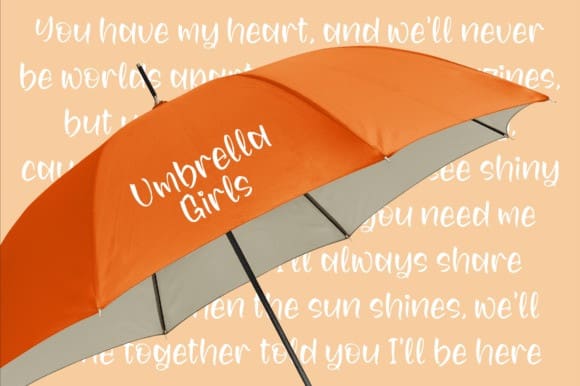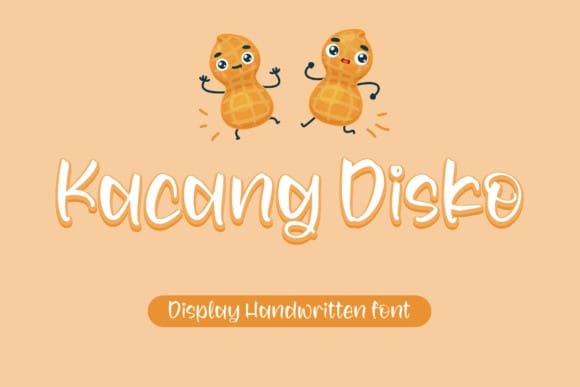
Kacang Disko Font
Kacang Disko Font – Adorable Handwritten Font, suitable for any projects such as logos, branding projects, homeware designs, product packaging, mugs, quotes, posters, shopping bags, t-shirts, book covers, name cards, invitation cards, greeting cards, labels, photography, watermark, special events, and all your other lovely projects that need a beautiful script taste.